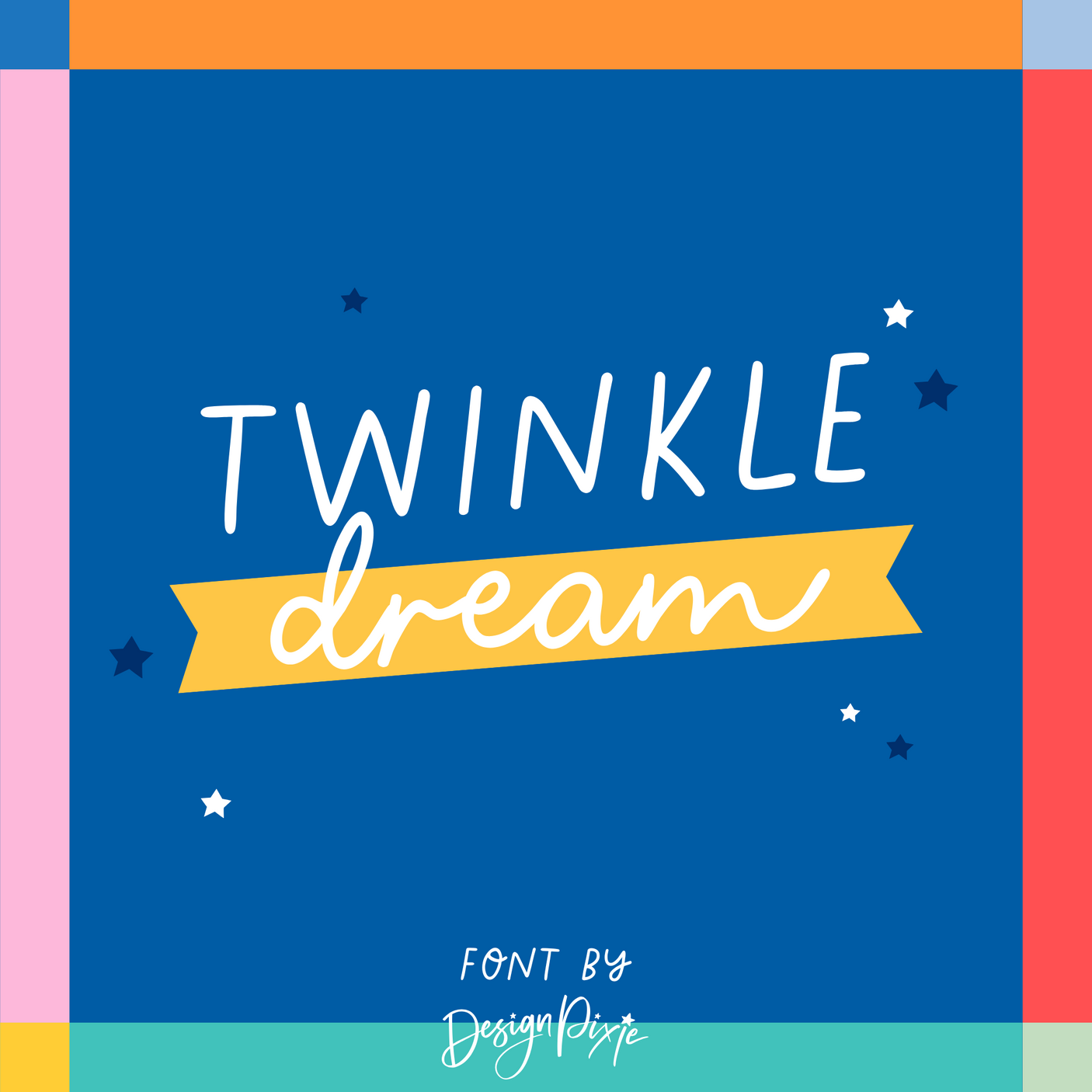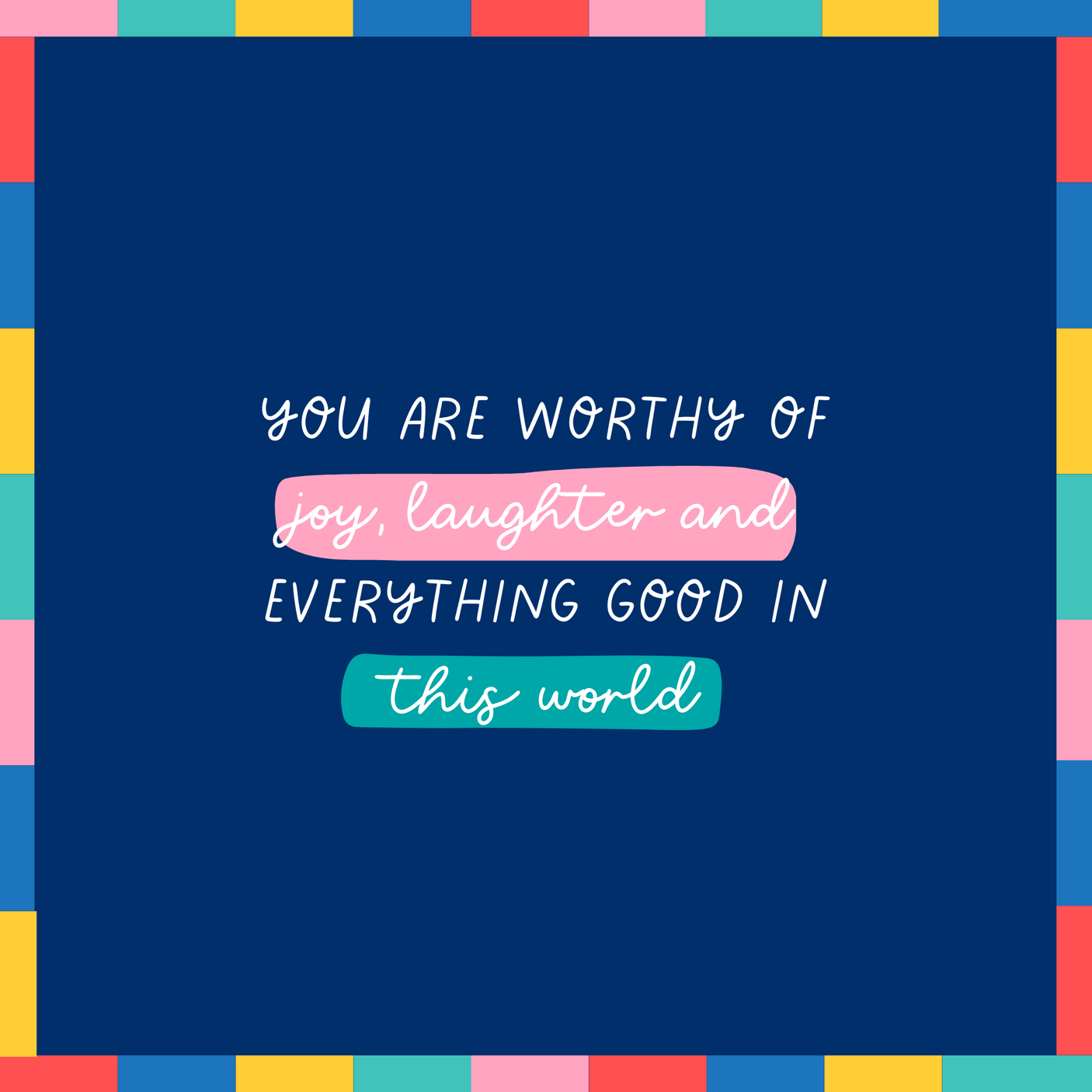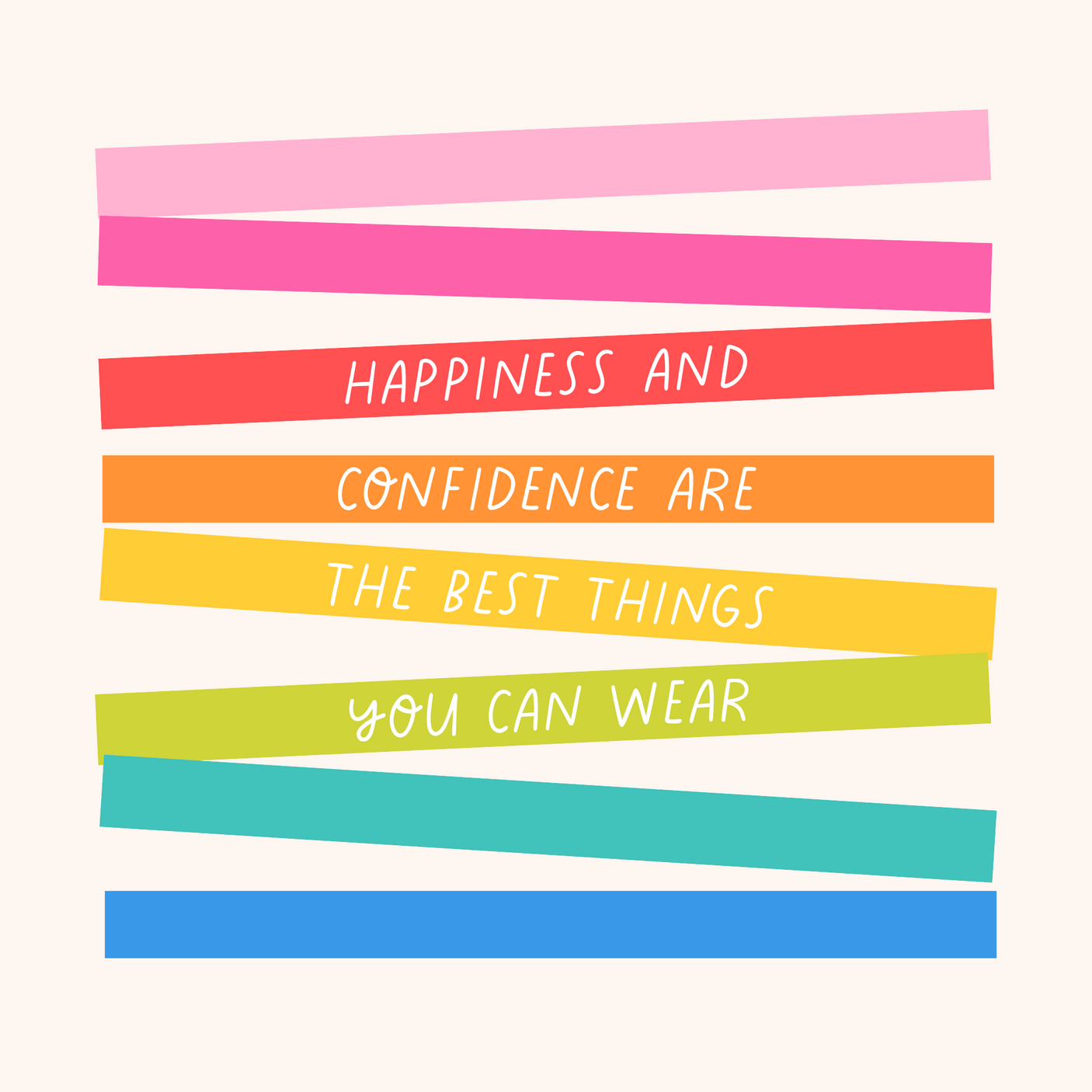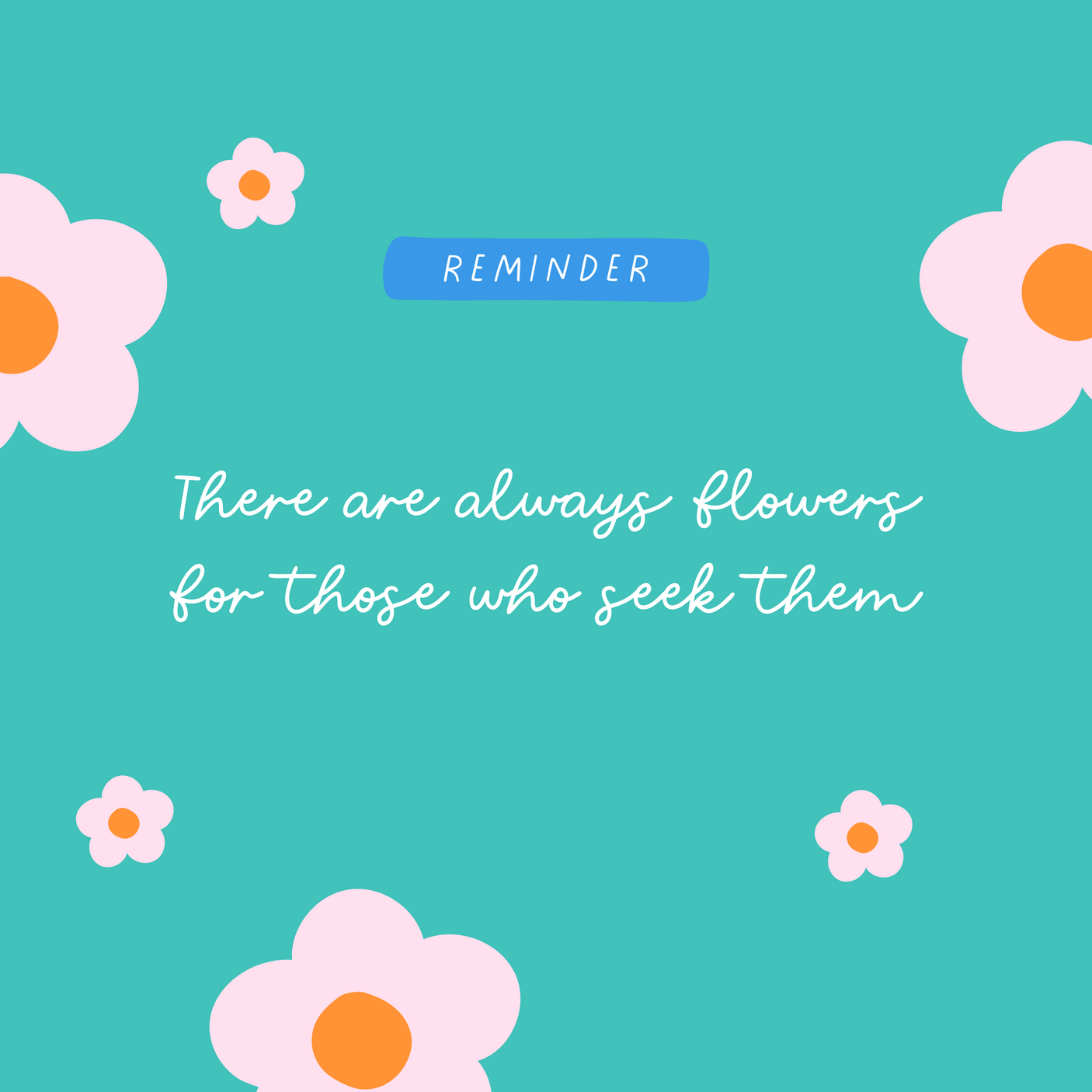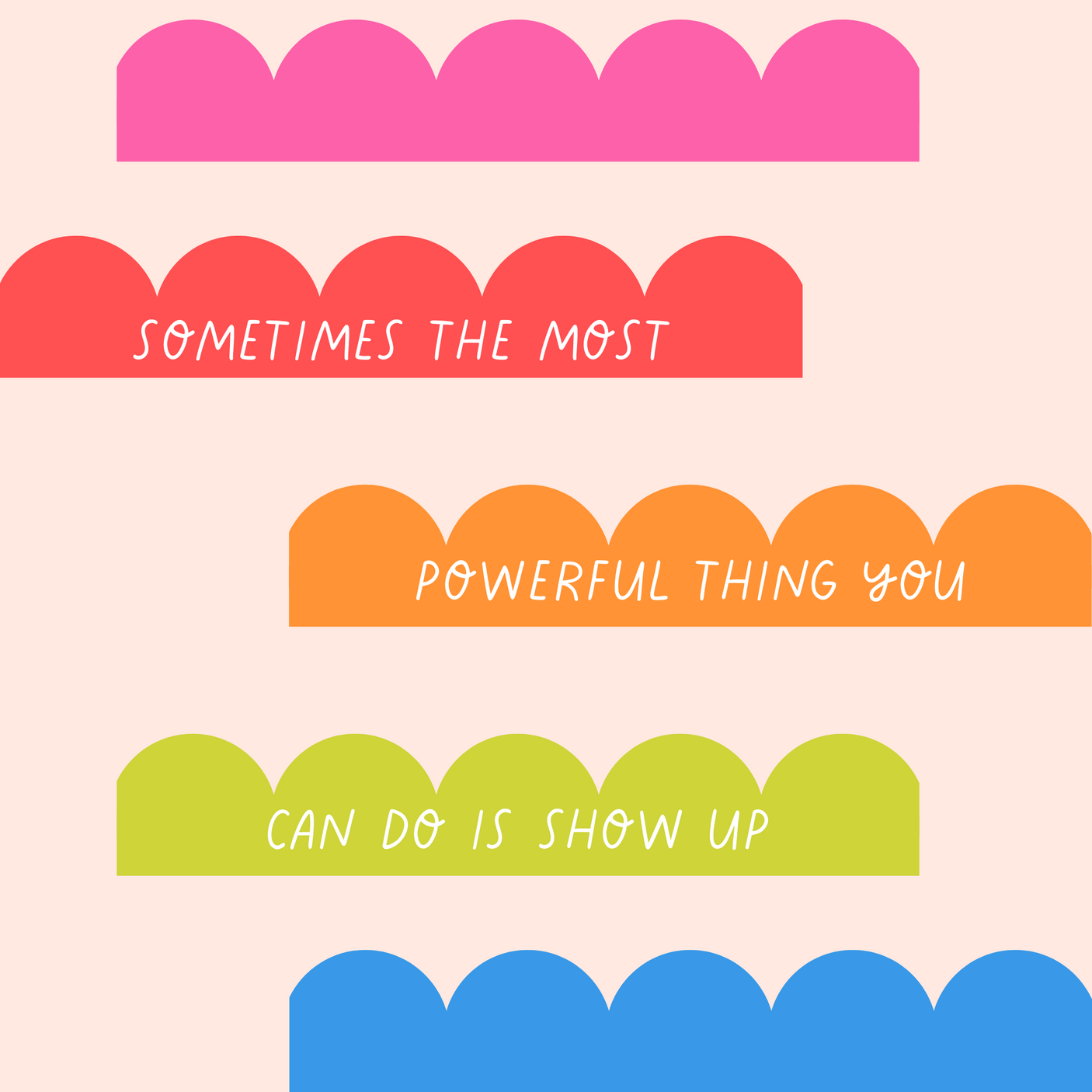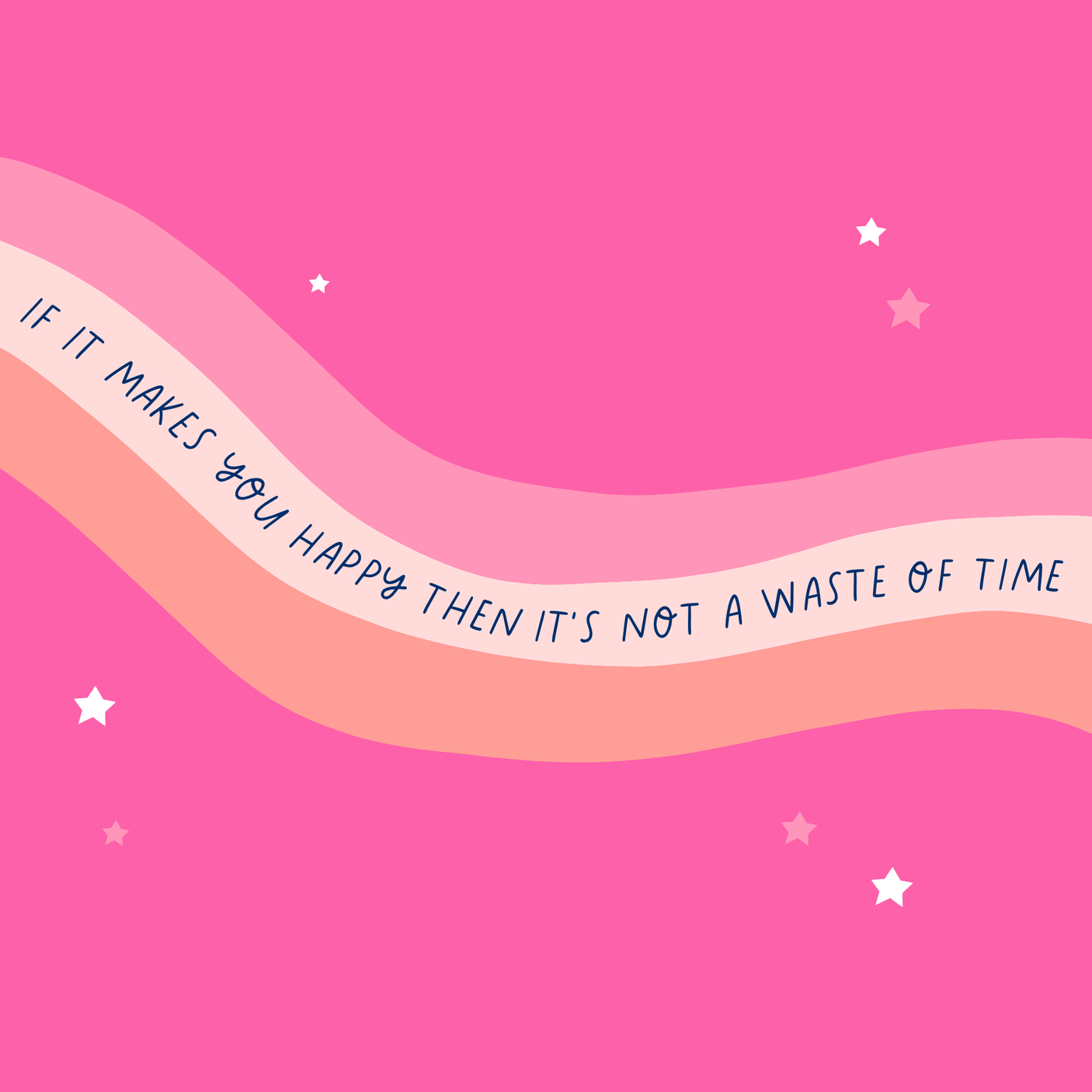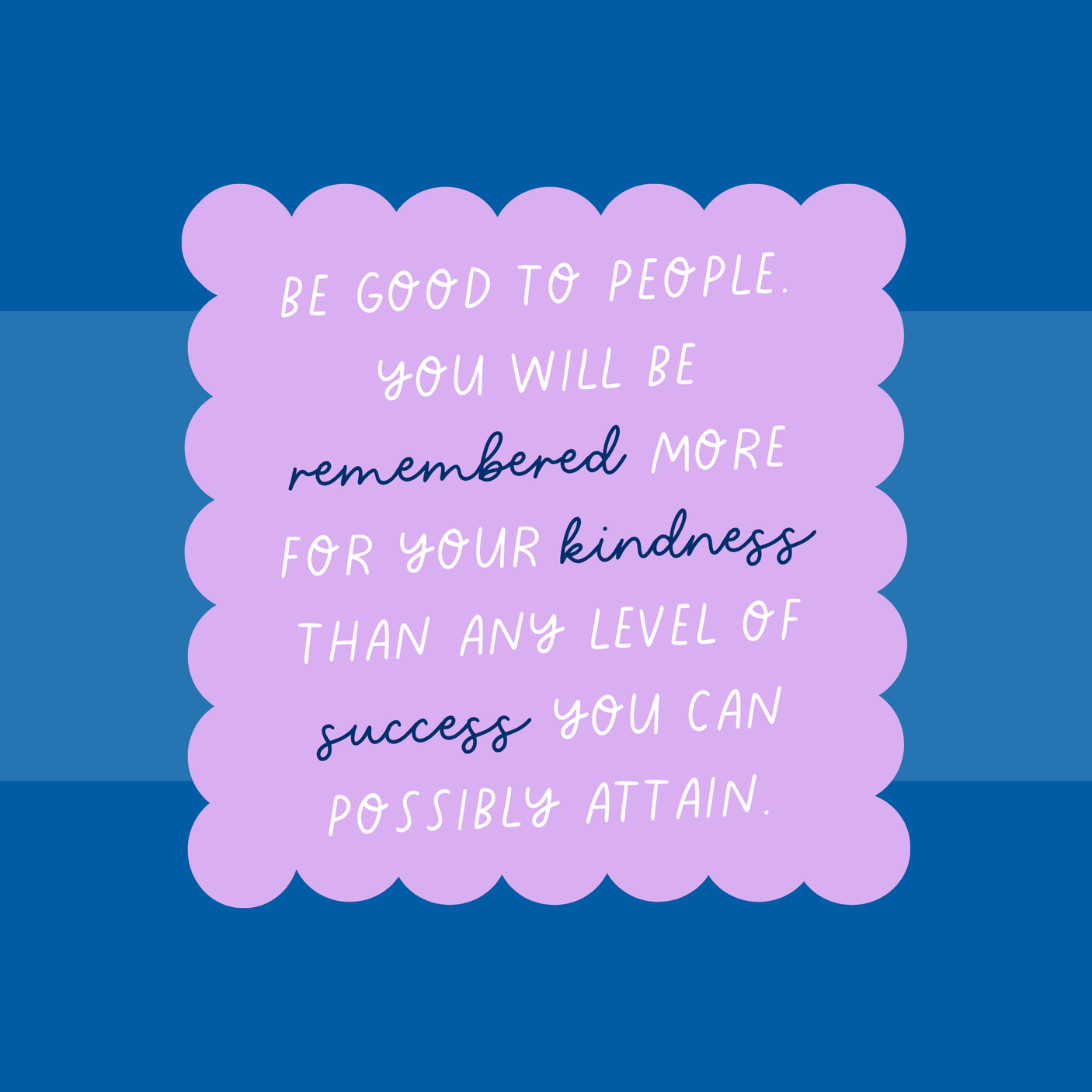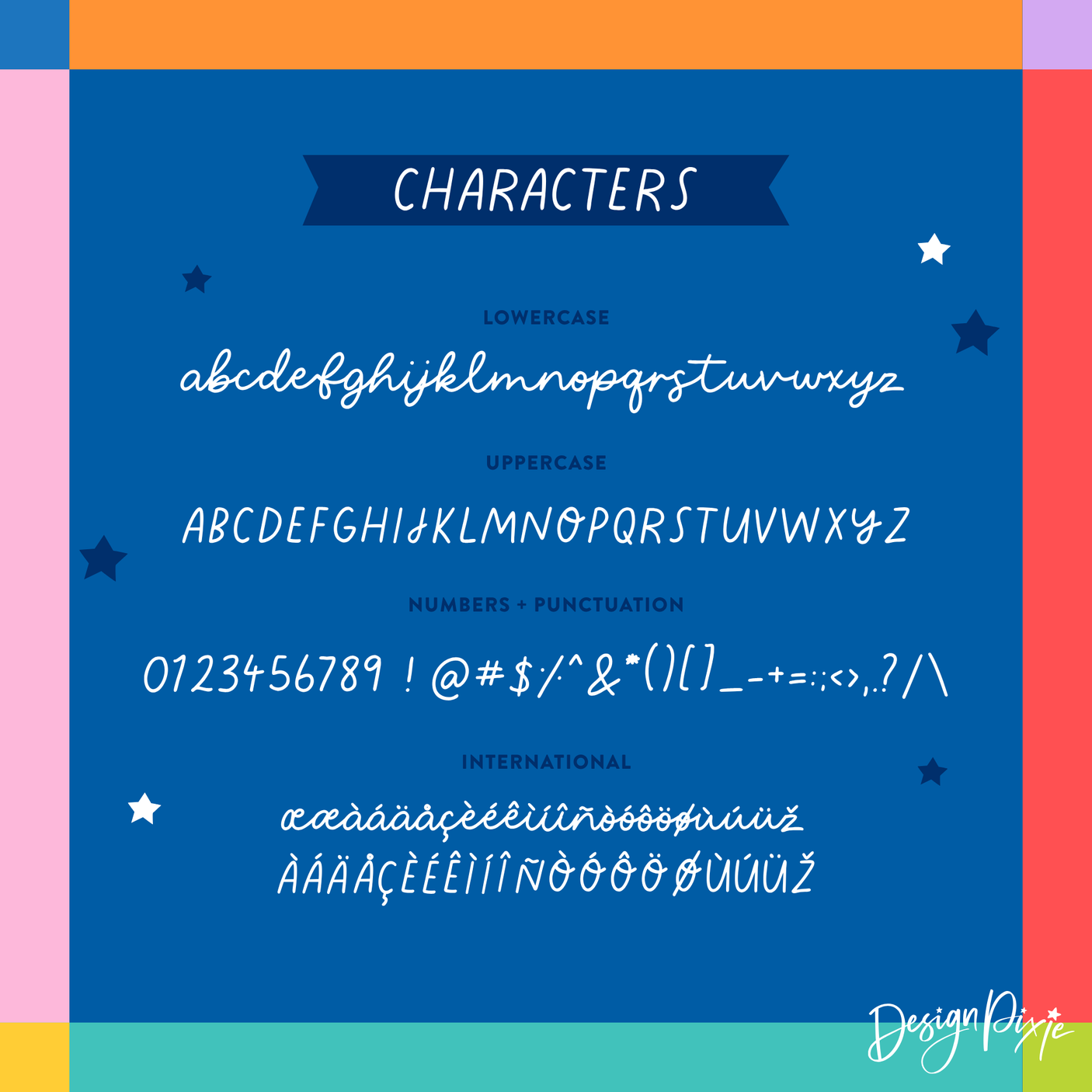
Twinkle Dream Font
Say hello to Twinkle Dream font - your new go-to for casual notes, sweet quotes, and cozy designs. This handwritten font combines a flowing cursive script for lowercase letters with simple, clean print-style uppercase characters, giving you that dreamy “mixed font” look without switching between fonts.
Twinkle Dream is perfect for journaling, digital designs, Instagram posts, and everyday creative projects that need a personal, handwritten touch.
Why you'll love Twinkle Dream Font:
- Cursive lowercase letters for a smooth, handwritten feel
- Plain uppercase letters for easy readability
- Natural mix-and-match style, no need to pair fonts
- Great for notes, quotes, branding, and personal projects
It’s like your handwriting, but cuter and more consistent!